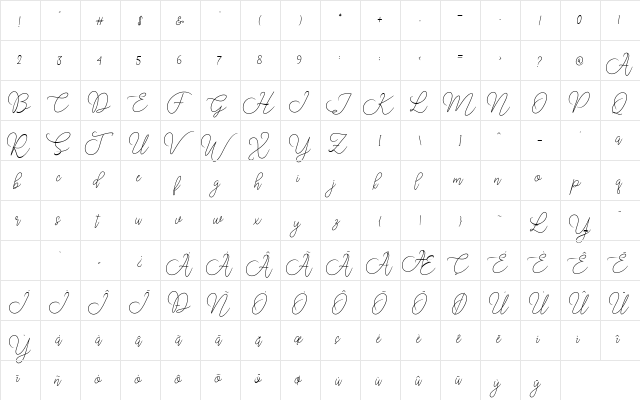
Moon Chin Regular
| Foundry | Captain Jack |
| Designer | Captain Jack (WDfont) |
Design Context for Moon Chin Typeface
Moon Chin is a composed and adaptable typeface that performs quietly and consistently across a wide range of design contexts.